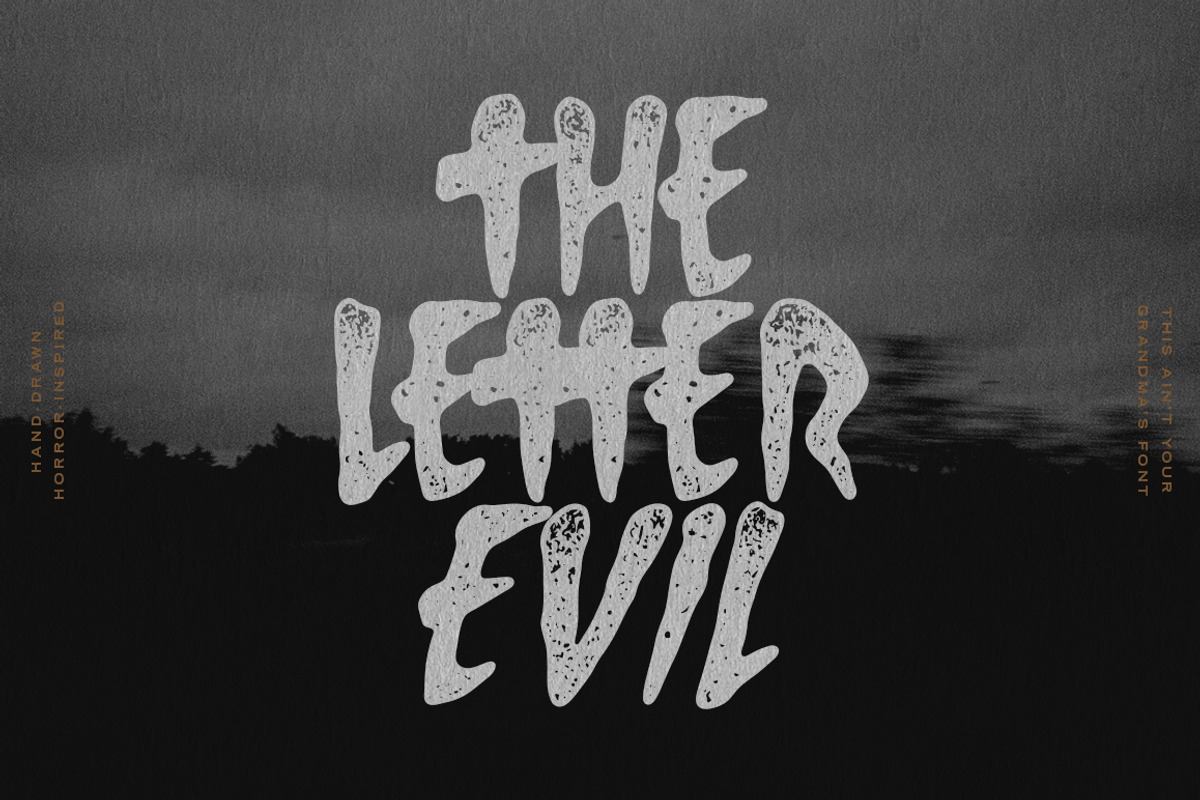
The Letter Evil Font Free Download is a bold and spooky typeface inspired by the eerie, mysterious atmosphere of horror films and gothic themes. With sharp edges, jagged lines, and a distressed look, this font is perfect for Halloween projects, horror movie posters, haunted house signage, or any design that needs a chilling, dark touch.
Its dramatic, unsettling letterforms capture the essence of fear and excitement, making The Letter Evil Font Free Download ideal for designs that want to create an intense, creepy vibe. Whether you’re creating a spooky event flyer, book cover, or branding for a horror-themed project, this font adds the perfect amount of darkness and energy.
Bring the horror to your designs with The Letter Evil Font Free Download and add a chilling, dramatic edge to your typography. Perfect for designers looking to create intense, fear-inducing visuals.